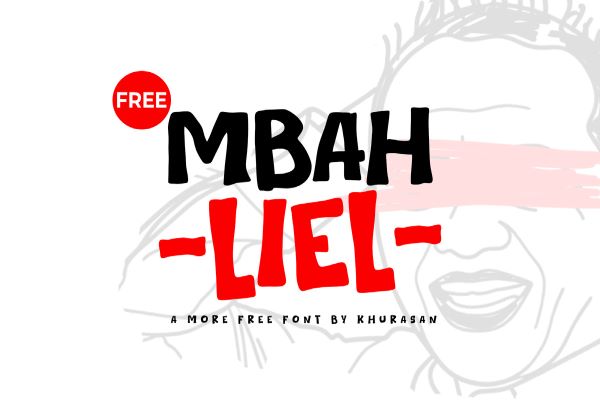
Mbah Liel Font
Mbah Liel by syaf rizal (Khurasan Studio) is a free bold gritty hand-lettered display font with an expressive, textured energy that captures the raw character of marker lettering worked with deliberate imperfection. Its decorative, cheerful letterforms carry a creative summer vibe — bold enough to anchor any headline, lively enough to communicate warmth and personality across posters, branding, packaging, social media content, and display applications wherever the design needs to feel handmade rather than templated. Like its companion Batolah, Mbah Liel is released fully free for both personal and commercial projects.